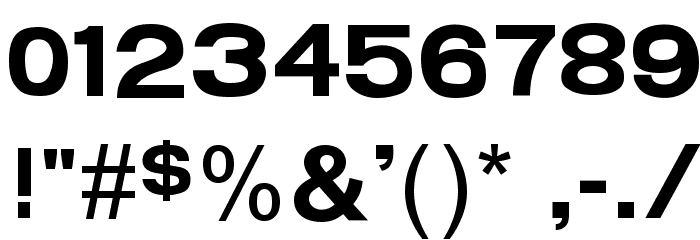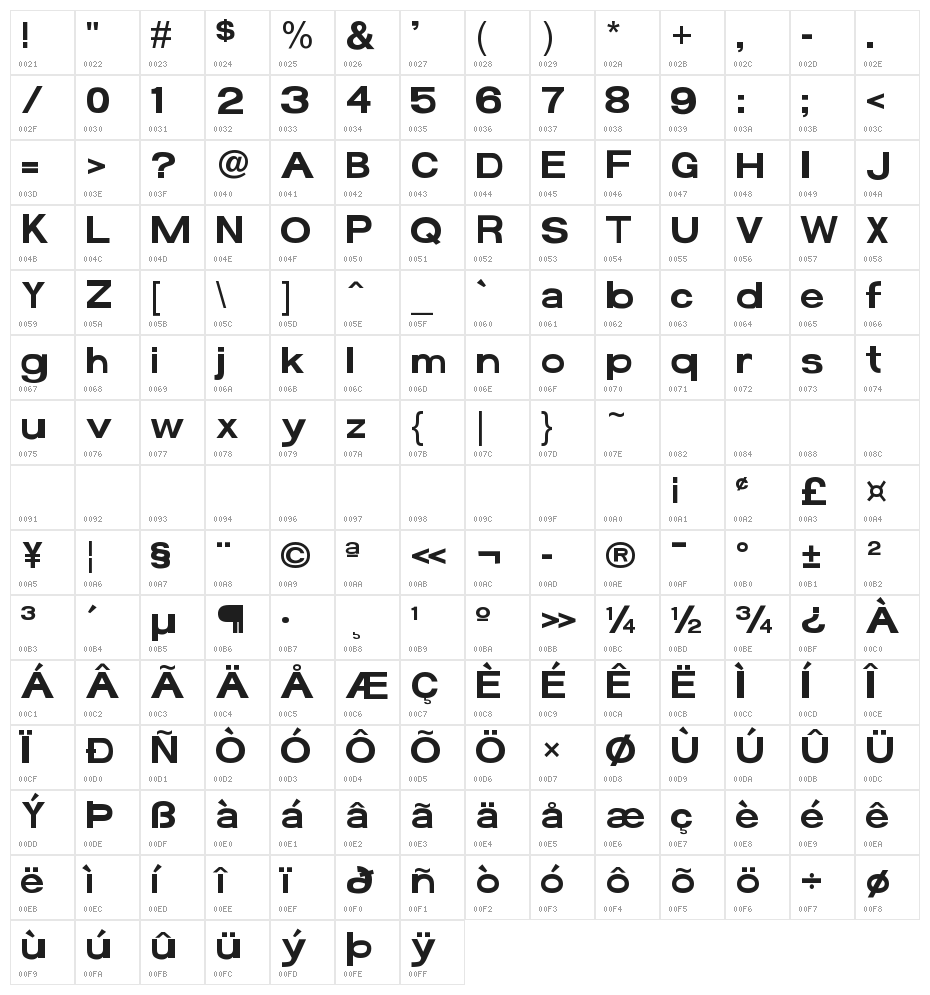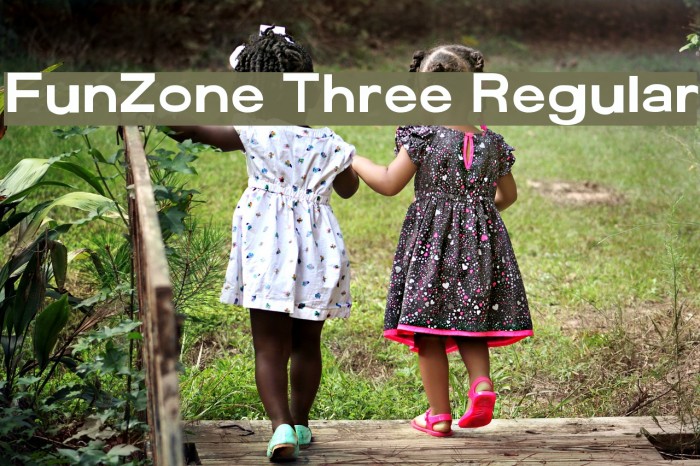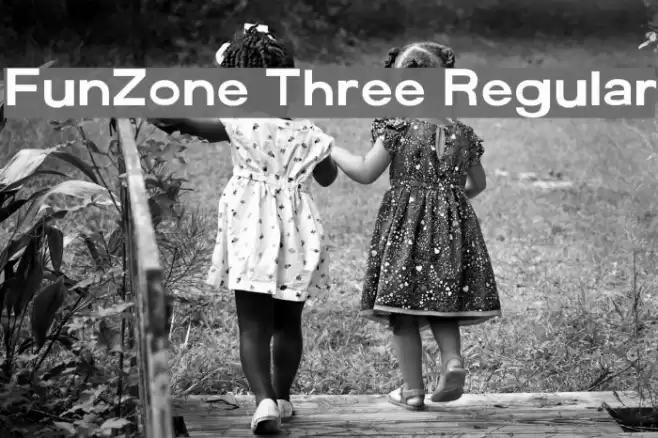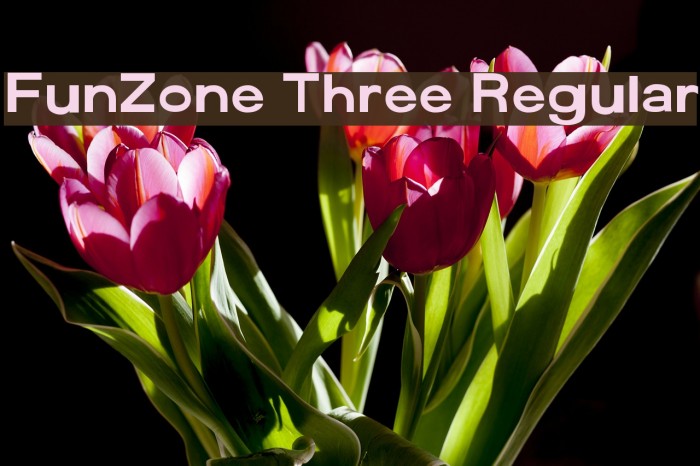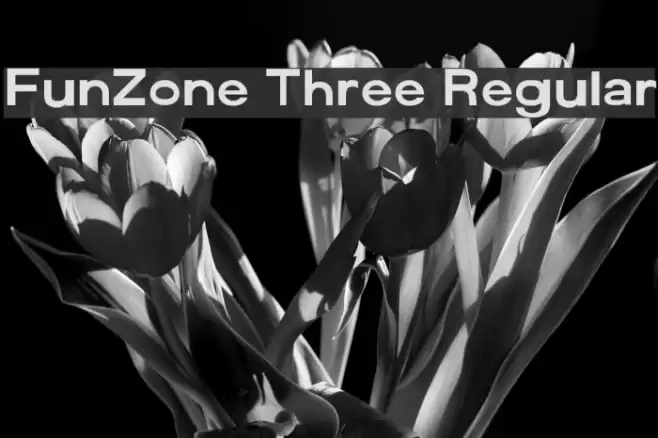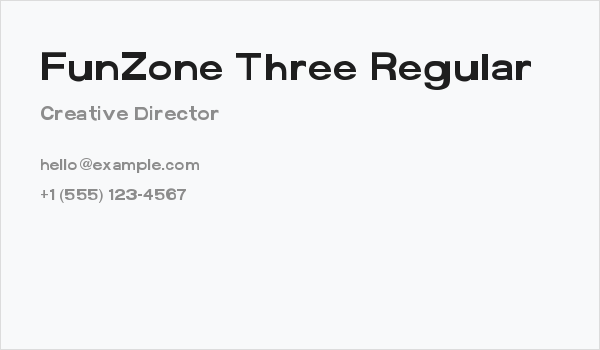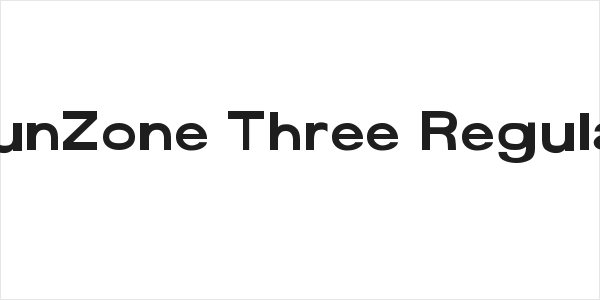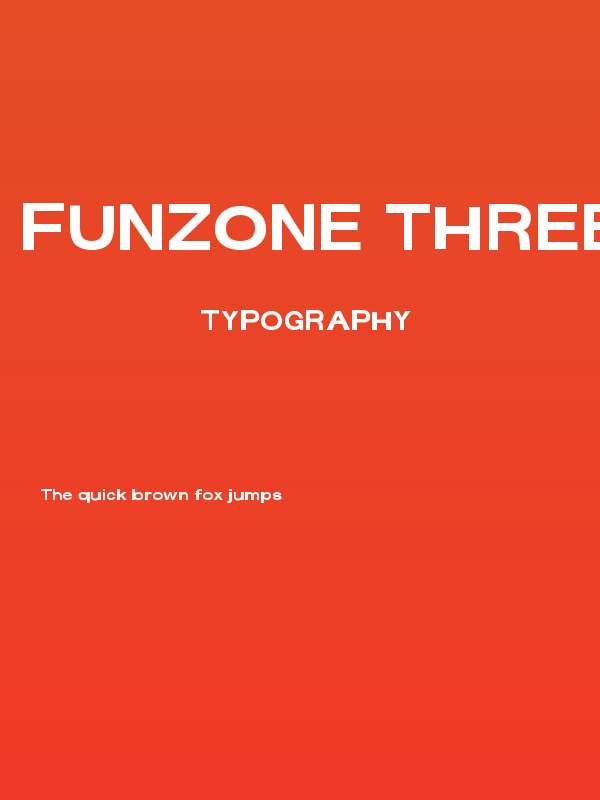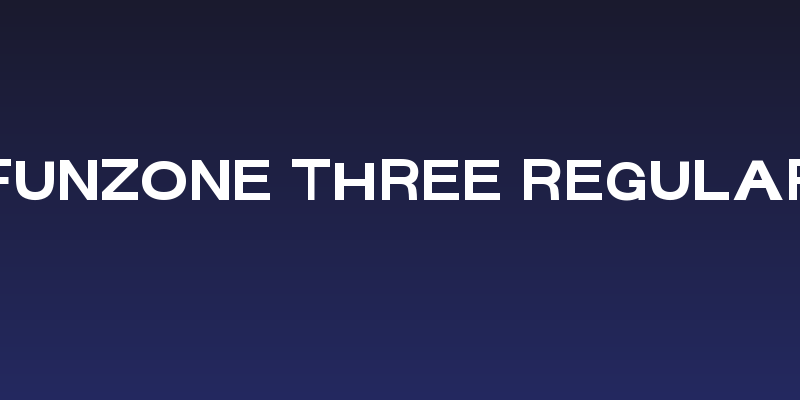
FunZone Three Regular Font
FunZone Three Regular Description
This font features a bold and modern sans-serif style with clean, geometric lines and a strong presence. The uppercase letters are uniform in height, while the lowercase letters maintain a consistent baseline, offering a harmonious look. The numerals are clear and easily readable, making them suitable for various applications. Special characters are well-defined, adding versatility to the font. The overall design is sleek and contemporary, making it ideal for projects that require a modern and professional appearance.